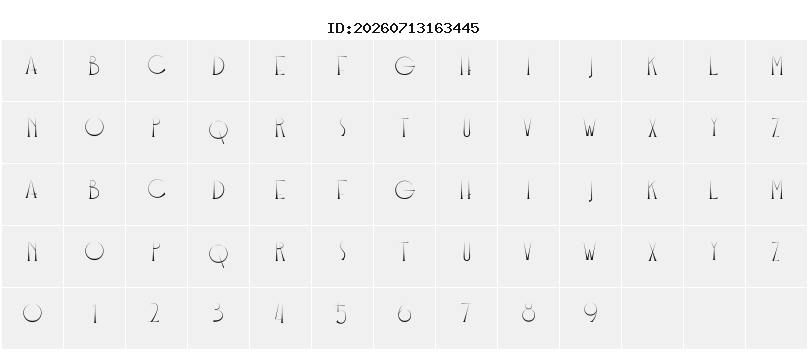
Bangkit Preview
About Bangkit.ttf
Bangkit.ttf is a modern, elegant sans-serif font designed for ultimate readability and visual harmony. Perfect for branding, headlines, web design, and print materials.